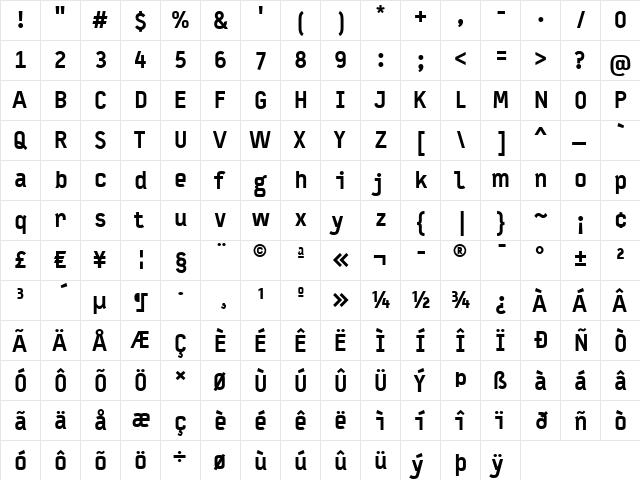
Typestar Web-Black Regular
| Designer | Steffen Sauerteig |
Design Context for Typestar Web-Black Typeface
Typestar Web-Black offers clean, dependable letterforms without strong stylistic allegiance, making it a practical choice for designers who need flexibility.